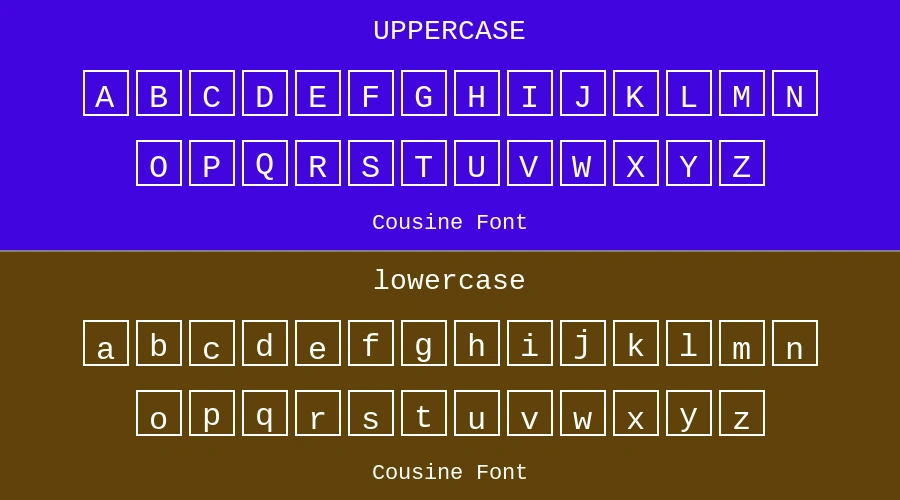
About Cousine Font
Cousine Font embodies typographic excellence through its masterful combination of open counters and refinement. Created for environmental graphics, this typeface delivers exceptional legibility and user trust across all applications. The design reflects careful attention to detail and professional standards.
Advanced capabilities include distinctive playful elements and versatile stylistic alternates, giving designers creative control. When used in brand logos, Cousine Font exhibits remarkable scanning accuracy. The harmonious balance between stem weight and generational relevance sets this typeface apart.